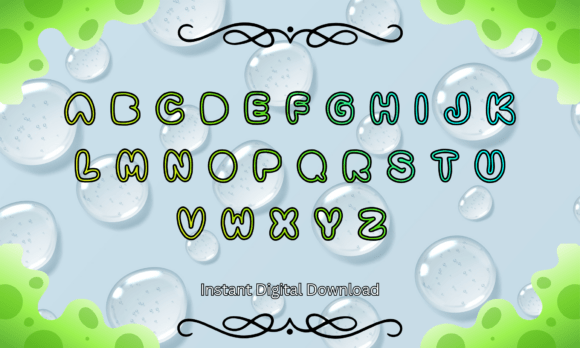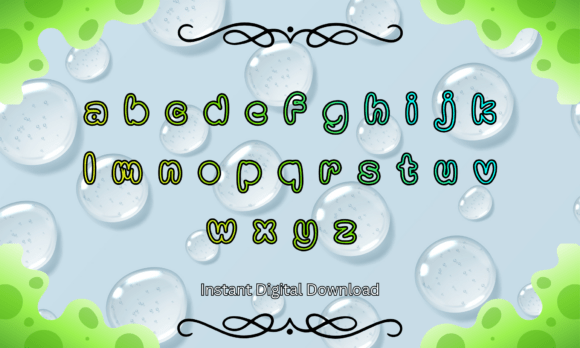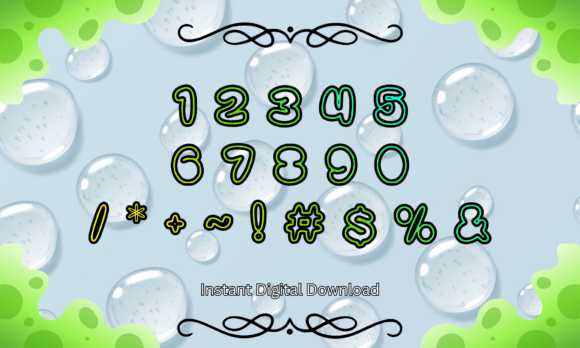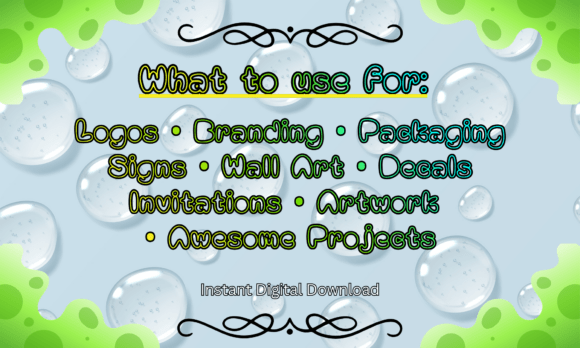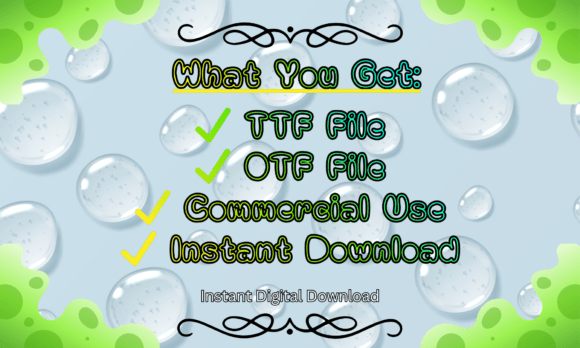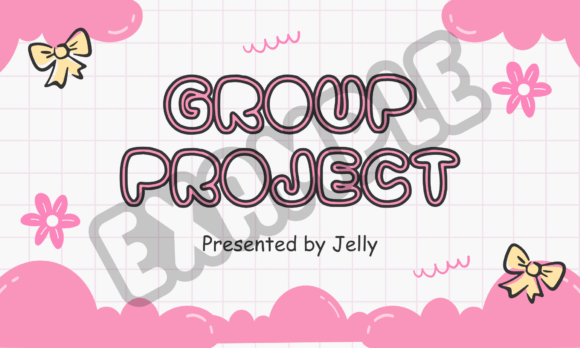
Introduction to Jelly Bubble Font Font
Fonts play a crucial role in design, and the Jelly Bubble Font font is a typeface that brings both character and versatility to any project. Whether you’re working on a branding project, a website, or a print design, the Jelly Bubble Font font offers a unique style that can elevate your work.
Bring playful bubbly vibes to your creative projects with Jelly Bubble Font ✨🫧 This adorable, rounded display font features soft bubble-style lettering with a fun cartoon aesthetic, perfect for cheerful and whimsical designs.
Inspired by soap bubbles, slime textures, and kawaii styles, Jelly Bubble Font adds a bright and energetic touch to any project Perfect for crafters, sublimation artists, small-business branding, party invitations, stickers, classroom decor, social media graphics, and kids-themed artwork.
Key Features of Jelly Bubble Font Font
Why Choose Jelly Bubble Font Font?
The Jelly Bubble Font font is more than just a typeface – it’s a design tool that helps you communicate your message with style and clarity. Its unique character set and versatile design make it suitable for a wide range of applications, from elegant invitations to bold headlines.
With its carefully crafted letterforms and balanced proportions, the Jelly Bubble Font font ensures readability and visual appeal across all mediums.
What makes Jelly Bubble Font font special?
The Jelly Bubble Font font stands out with its unique design, exceptional readability, and versatility across various design applications.